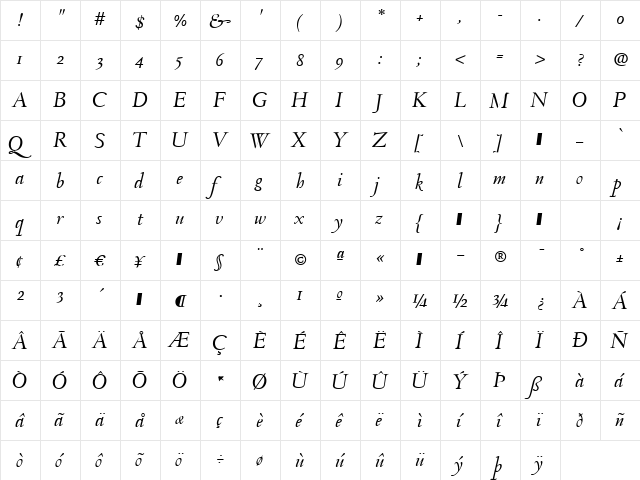
Monteverdi Italic
Design Context for Monteverdi Typeface
Monteverdi takes a measured approach to typography — its balanced proportions and neutral character make it a reliable workhorse for both digital and print work. The dynamic lean of this cut emphasises speed and emphasis in any layout.